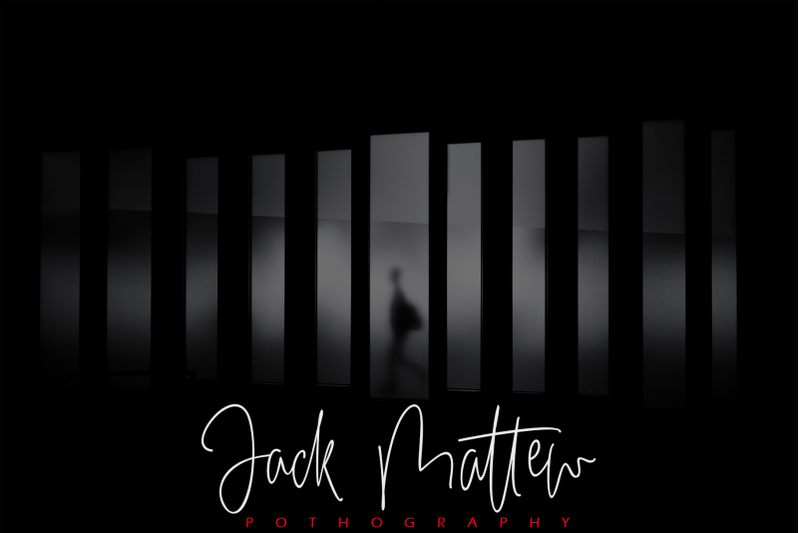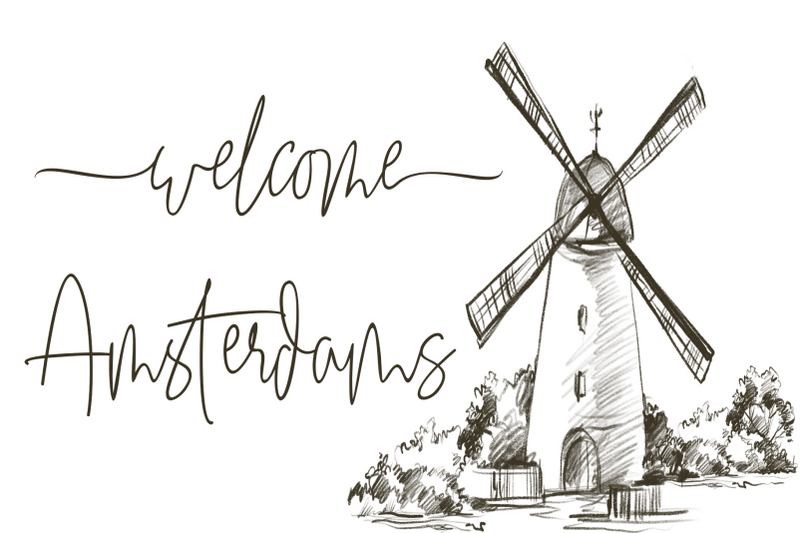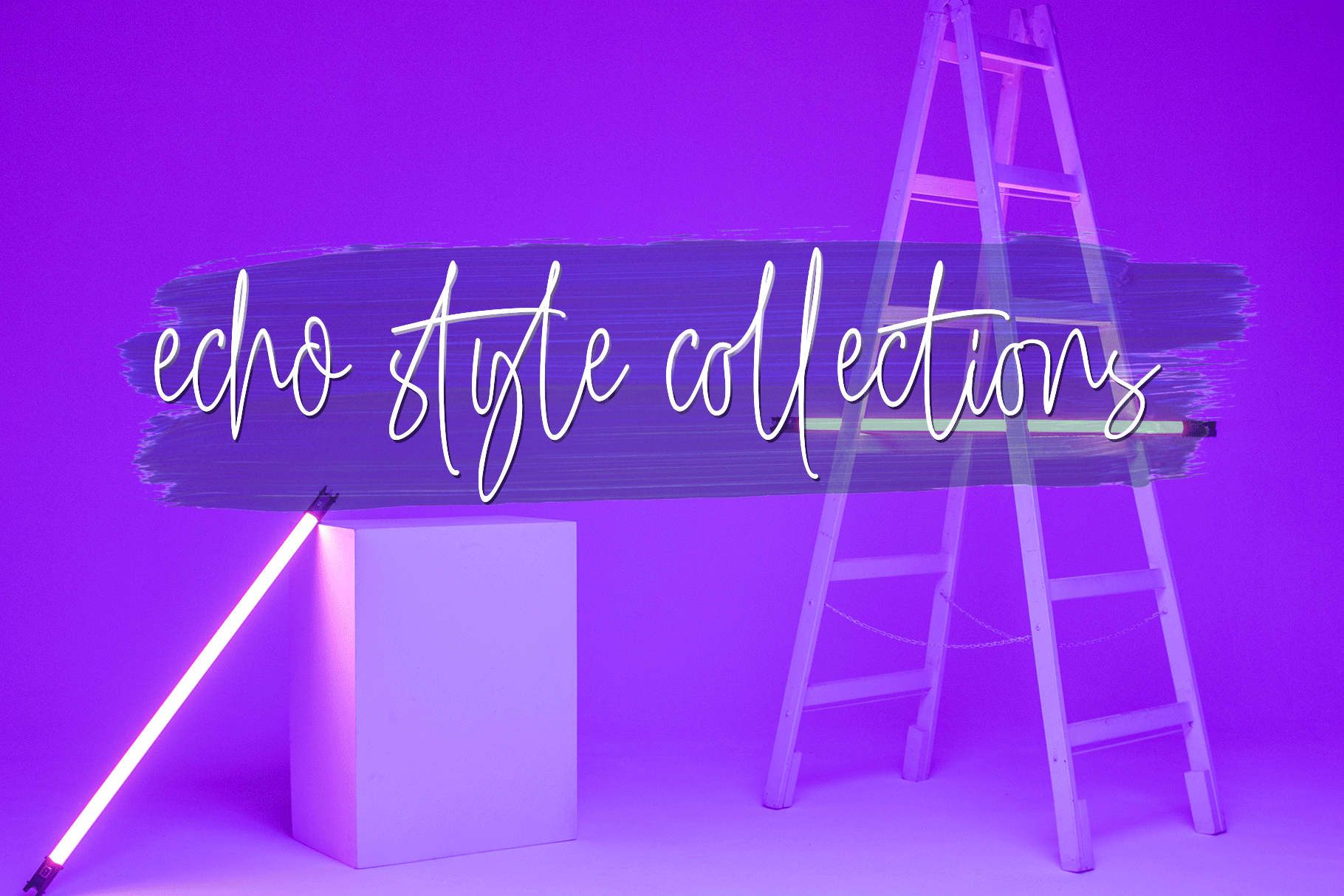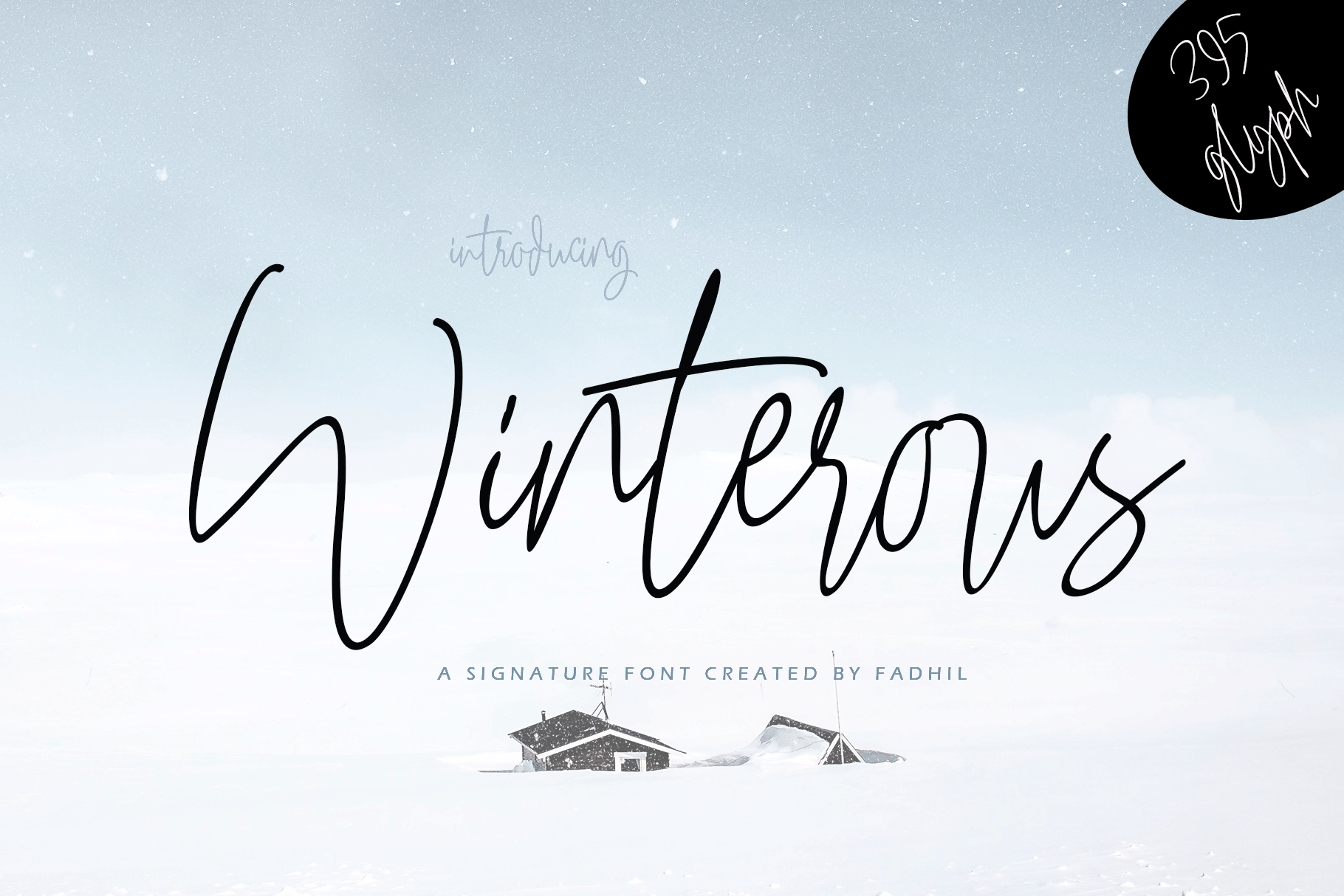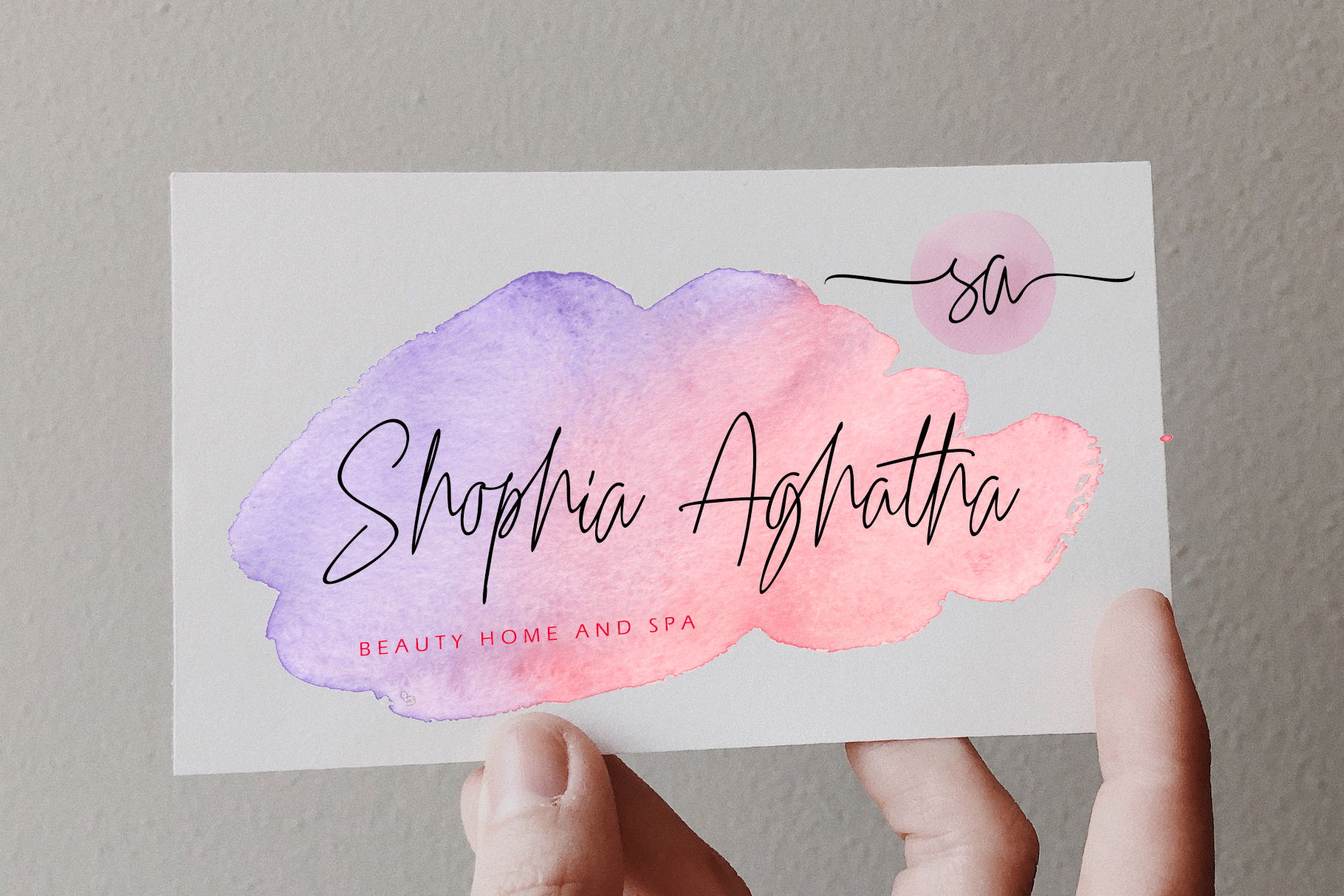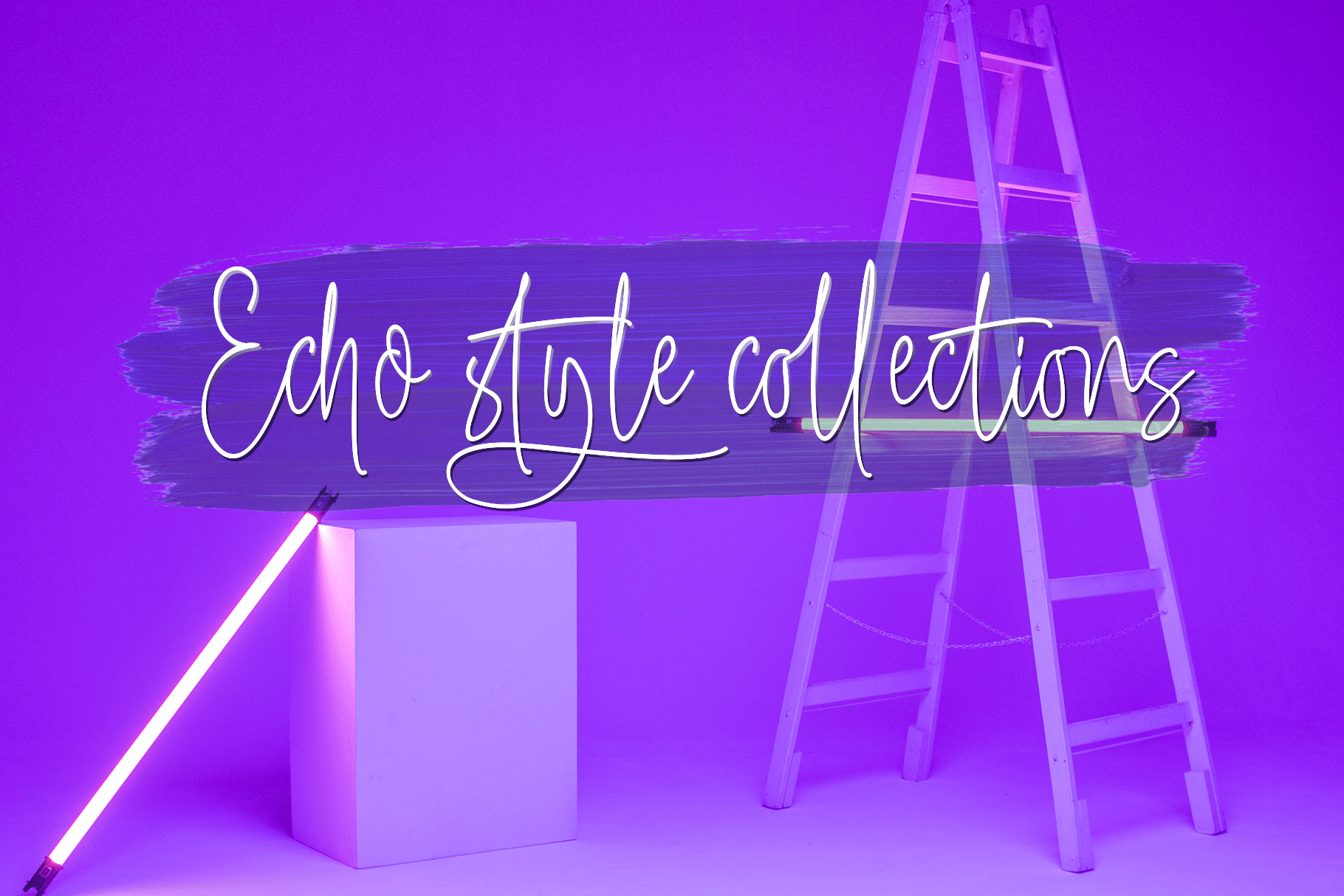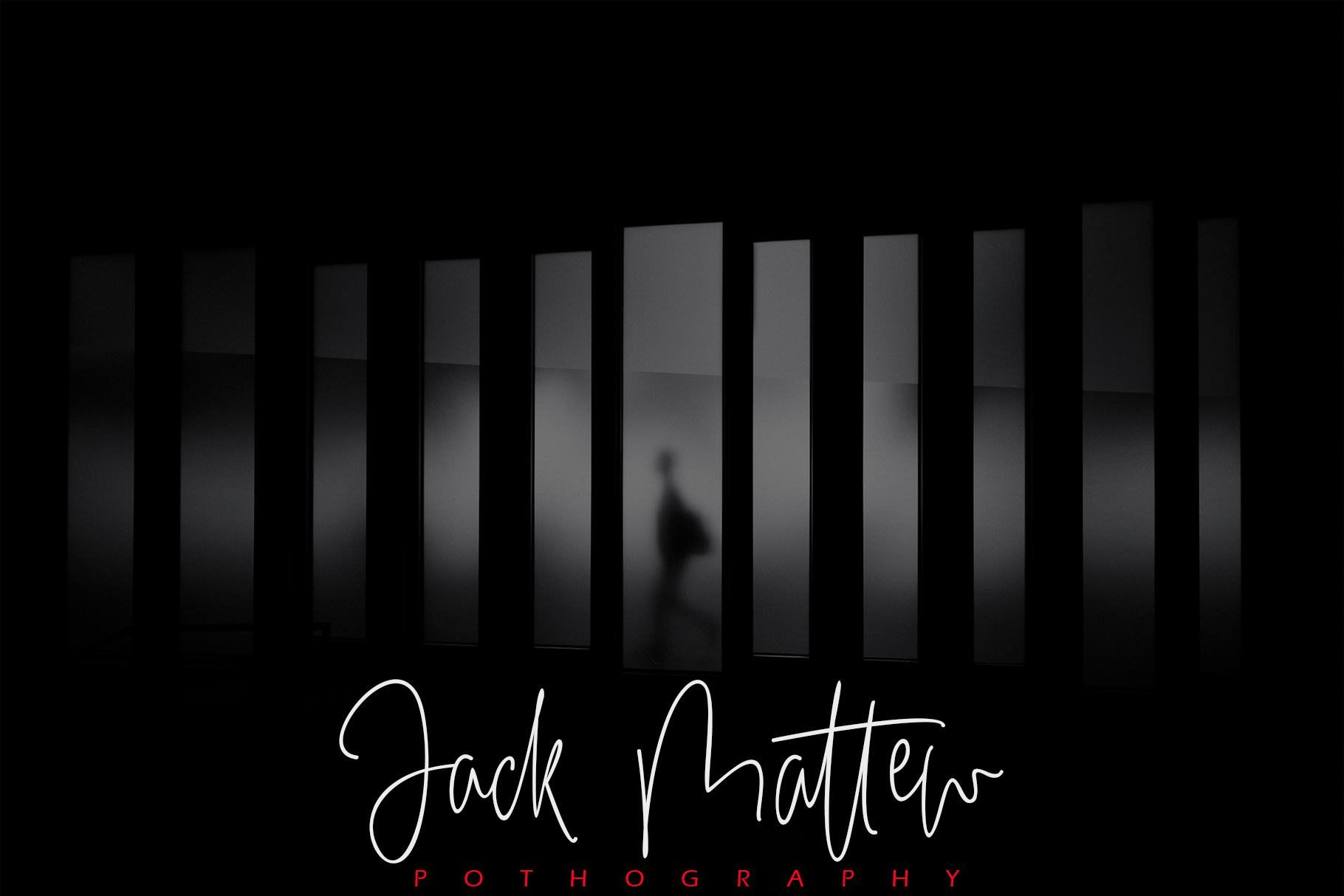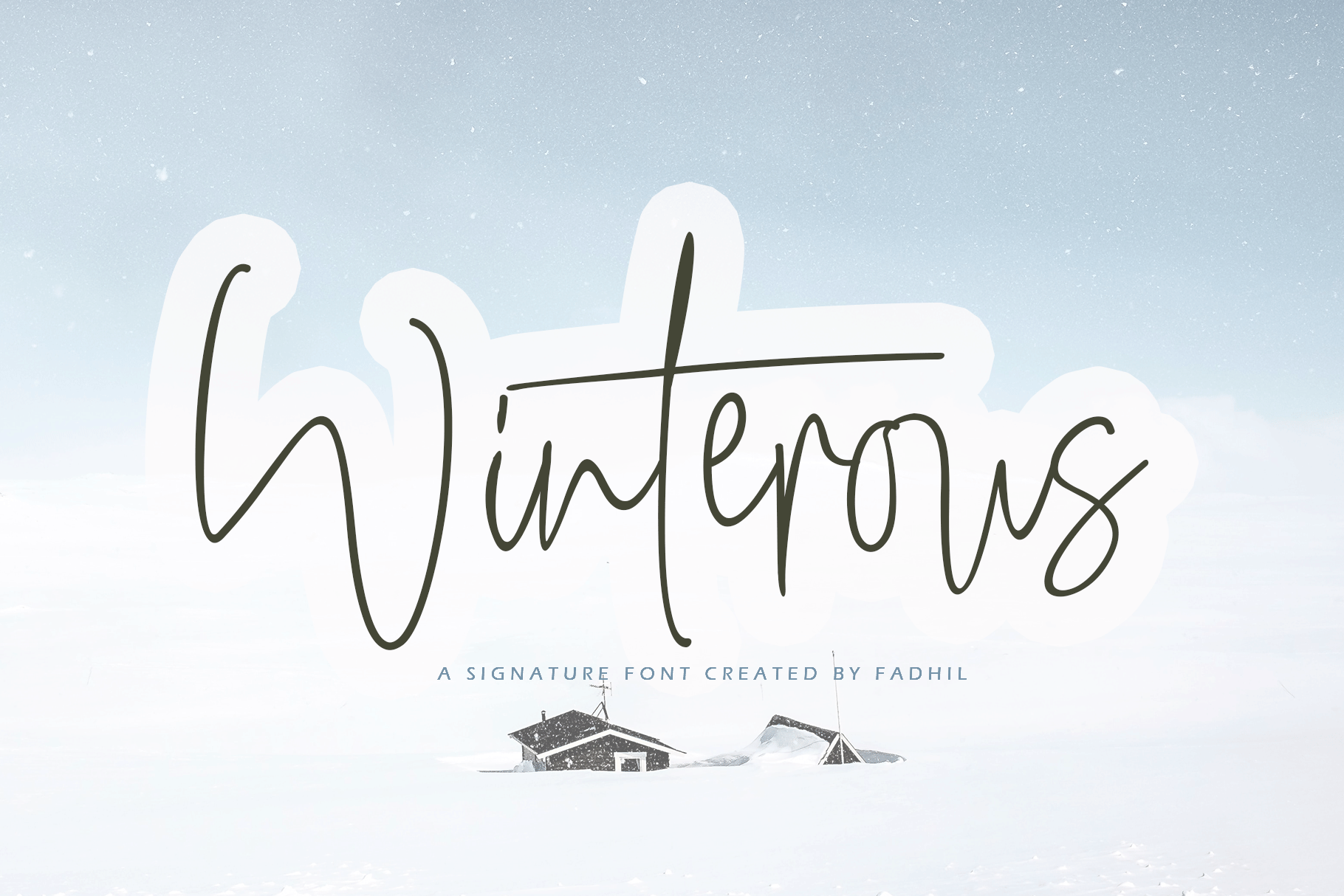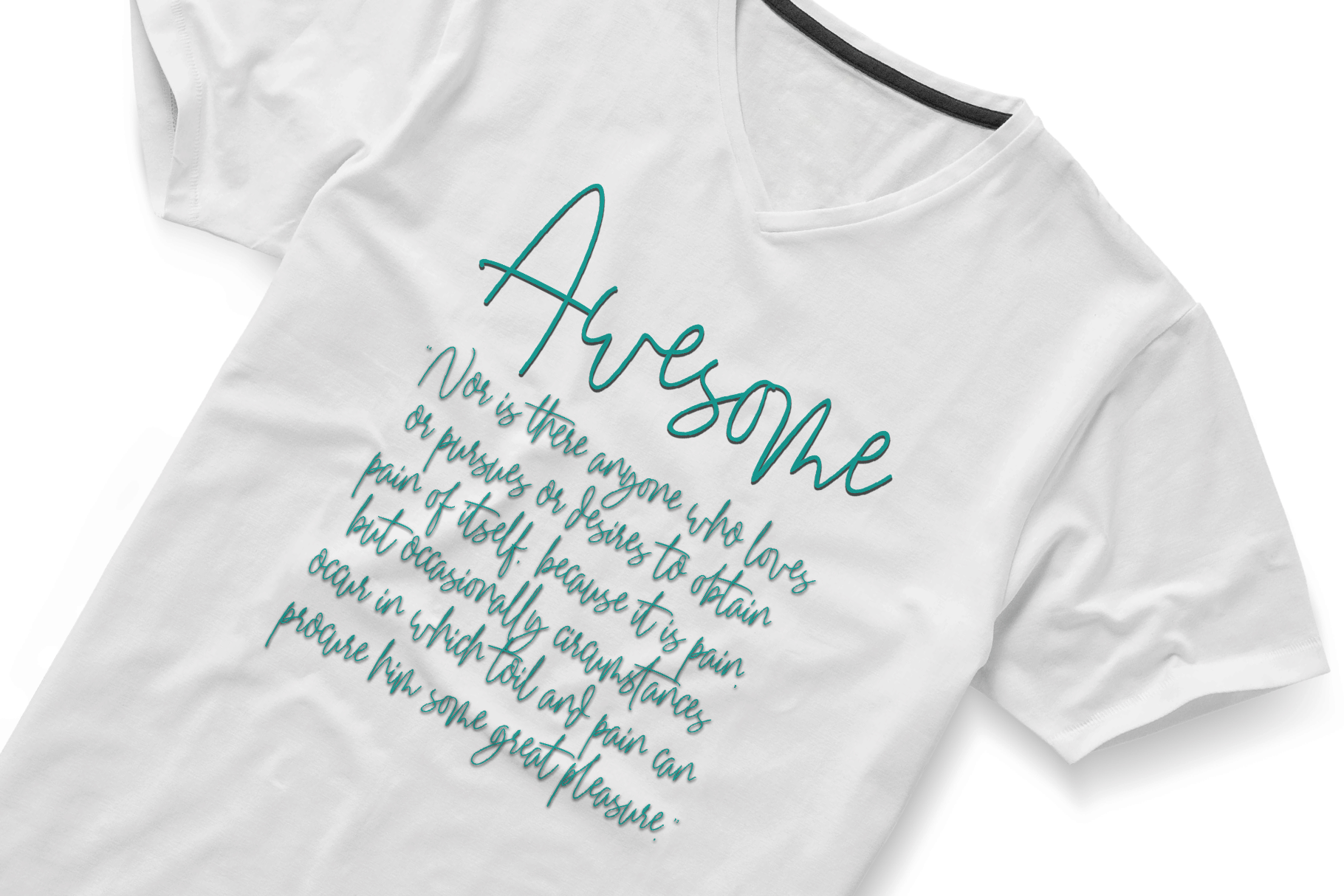
Winterous Font Duo
Hello Font Lovers...           Winterous Duo, is another lovely modern script, signature and Combination font, which is combining the style of classic calligraphy with an modern style. combines from copperplate to contemporary typeface with a dancing baseline, modern and elegant touch. including alternates, and ligatures.      Font Included: (OTF,TTF,WOFF,WEBFONT).      To enable the OpenType Stylistic alternates, you need a program that supports OpenType features such as Adobe Illustrator CS/CC, Adobe Indesign CS/CC, Adobe Photoshop CS/CC, CorelDraw, Microsoft Office, etc.      THANK YOU SO MUCH, HAVE A NICE DAY.
Winterous Slant
Winterous